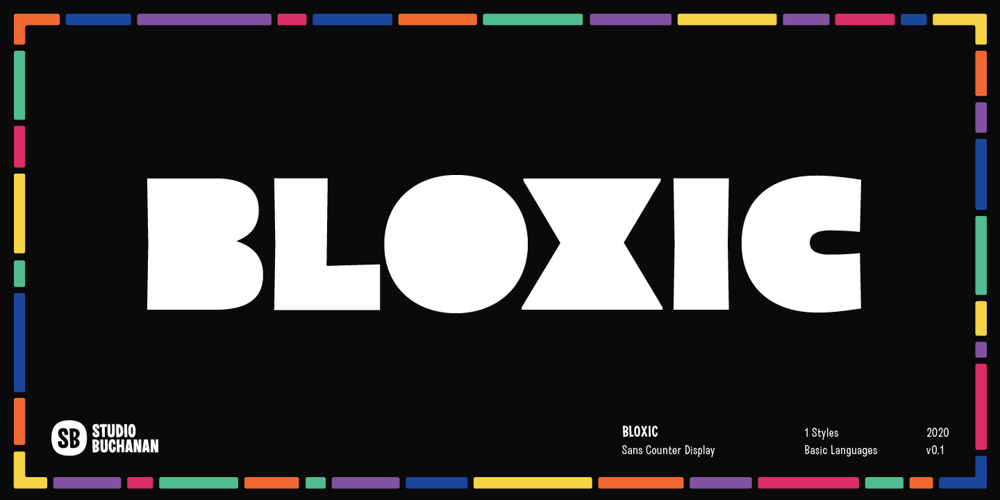
Bloxic Font Family was designed by Jonathan Gibson and published by Studio Buchanan. Bloxic contains 1 styles and family package options. Bloxic is a chunky, counter-less display typeface, packed full extra characters and some bonus icons! Bloxic comes packed with over 320 glyphs, including stylistic alternate characters, circled numbers, and a whole bunch of useful symbols and stuff.It started life back in 2008, when pop/punk/emo bands were all the rage. Pulled from a hand lettered t-shirt design, adapted and systemised – it now exists for your typographic pleasure. It still carries some of the hand rendered feel of the original design, and has some slightly different takes on a zero counter typeface (which the world clearly need more of…).